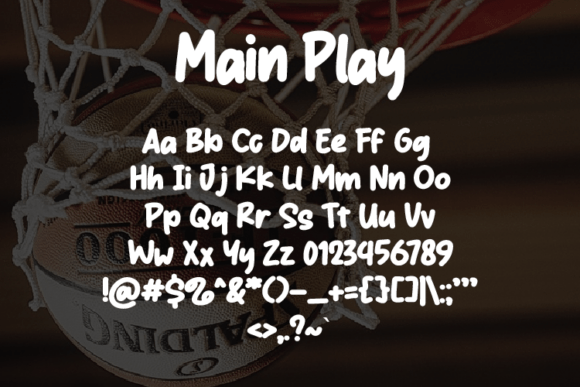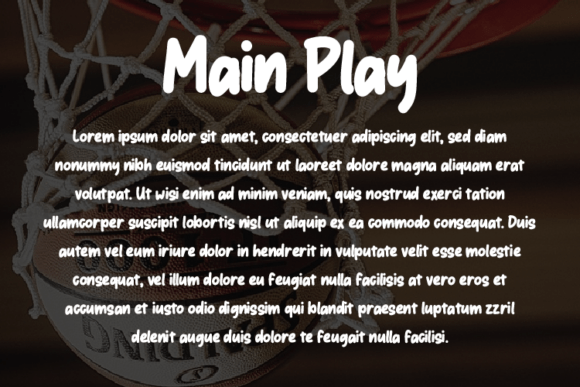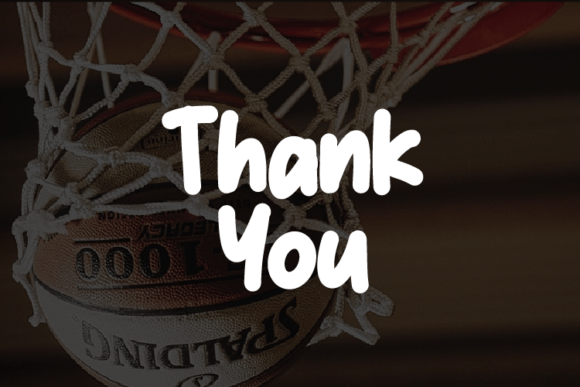
Introduction to Main Play Font
As a designer, you know that the right font can make all the difference in a project. You’re pouring your heart and soul into a creative project, and the perfect font can elevate it to the next level. That’s why we’re excited to introduce you to the Main Play Font, a modern and elegant typeface designed for flexibility and excellent readability across a wide range of media.
Main Play Font
- Designed with a modern and playful aesthetic, perfect for use in digital and print media.
- Includes a comprehensive character set, covering a wide range of languages and characters.
Honest Review: Main Play Font
I recently had the chance to work with the Main Play Font, and I must say it’s been a solid addition to my design resource library. The high quality of this font makes it perfect for a wide range of creative projects.
Here are some of the things that work well with the Main Play Font:
- High quality and clear typography
- Easy to use and customize
- Perfect for creative projects and designs
- Not as extensive a character set as some other fonts
- Not ideal for complex, detailed designs
Overall, I’m impressed with the Main Play Font. While it may not be perfect, it’s a solid choice for designers looking for a high-quality, free font. With a little creativity, you can get a lot out of this design resource. ✨
For the best results, use the Main Play Font on a transparent background to create a clean and modern look. Experiment with different font sizes and styles to add visual interest to your design.
The Main Play Font is perfect for creating engaging social media graphics, presentations, and brochures. Its modern and playful design makes it an ideal choice for creative projects that require a touch of sophistication and fun.